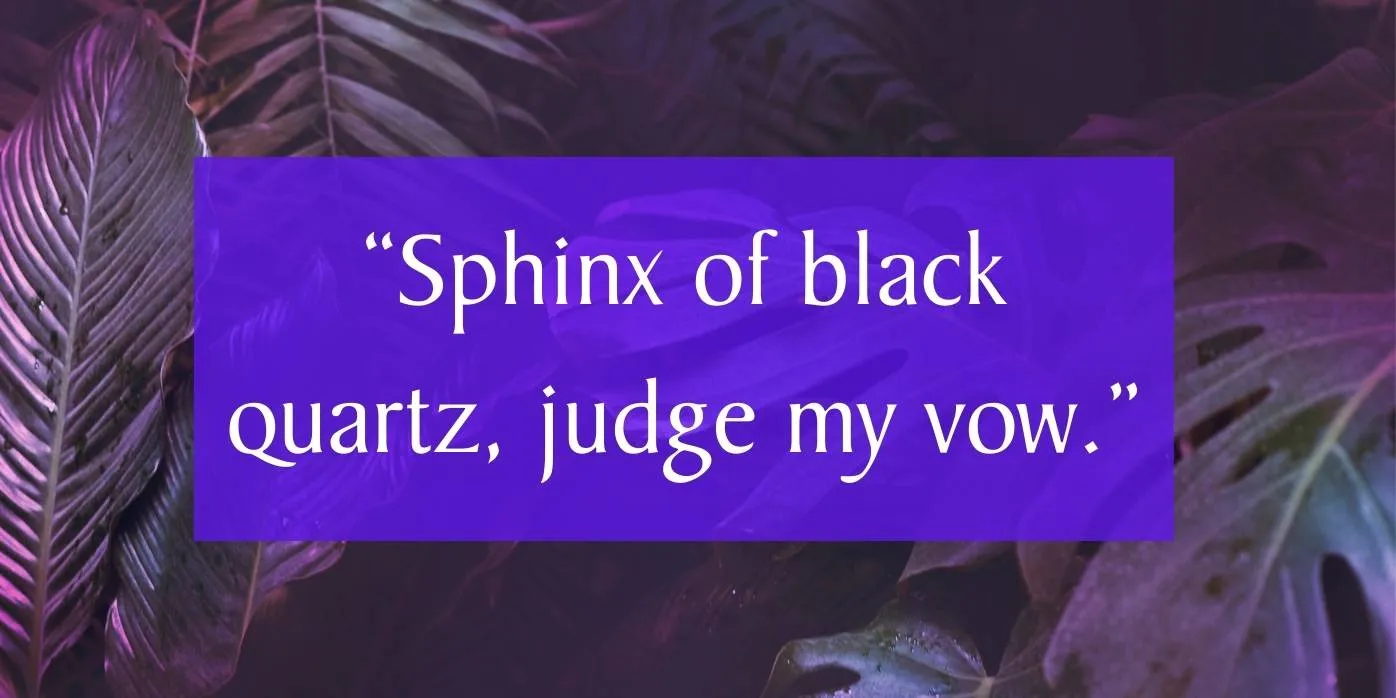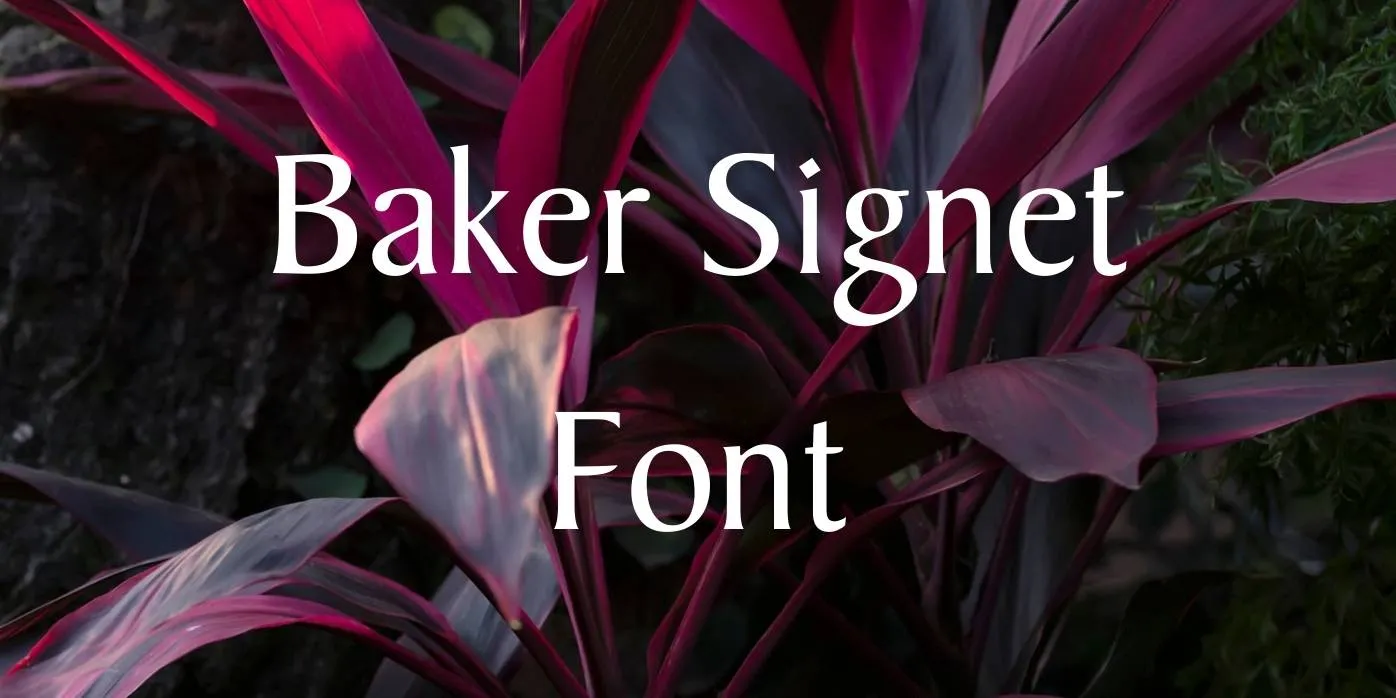
Baker Signet Font
Here, we introduce a marvelous typeface that is Baker Signet Font. This typeface belongs to the Display font family. It is a highly decorative font that was designed by John A. Baker in the year 1941.
It has a unique and interesting look that can be used to make any text stand out. It is available in three weights italic, regular, and bold weights. The regular weight is perfect for body text, while the bold weight is great for headings and titles. The italic weight is perfect for emphasizing certain words or phrases.